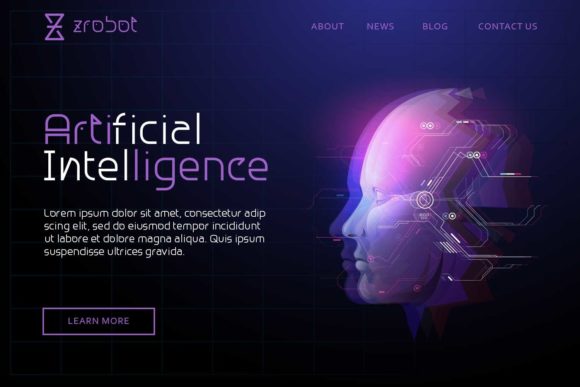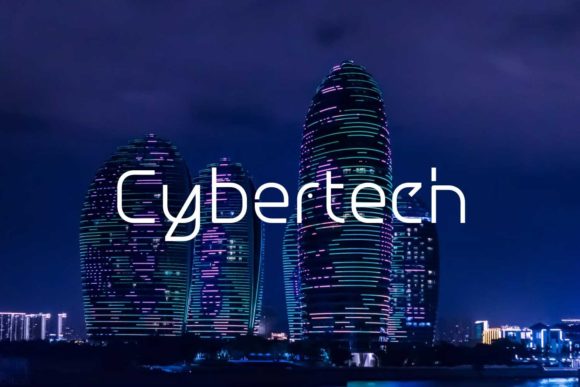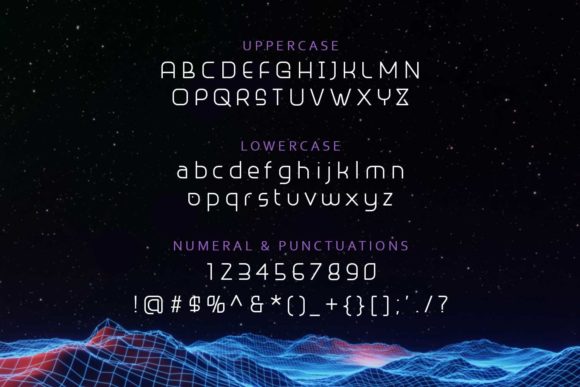
Introduction to Qraydom Font
Qraydom – Futuristic display font, suitable for modern, future, science fiction, cyberpunk and technology themes.
It’s also great for gaming and esport content With this font, you can design posters, magazines, banners, logos, social media content, and video promotion with a techno feel.